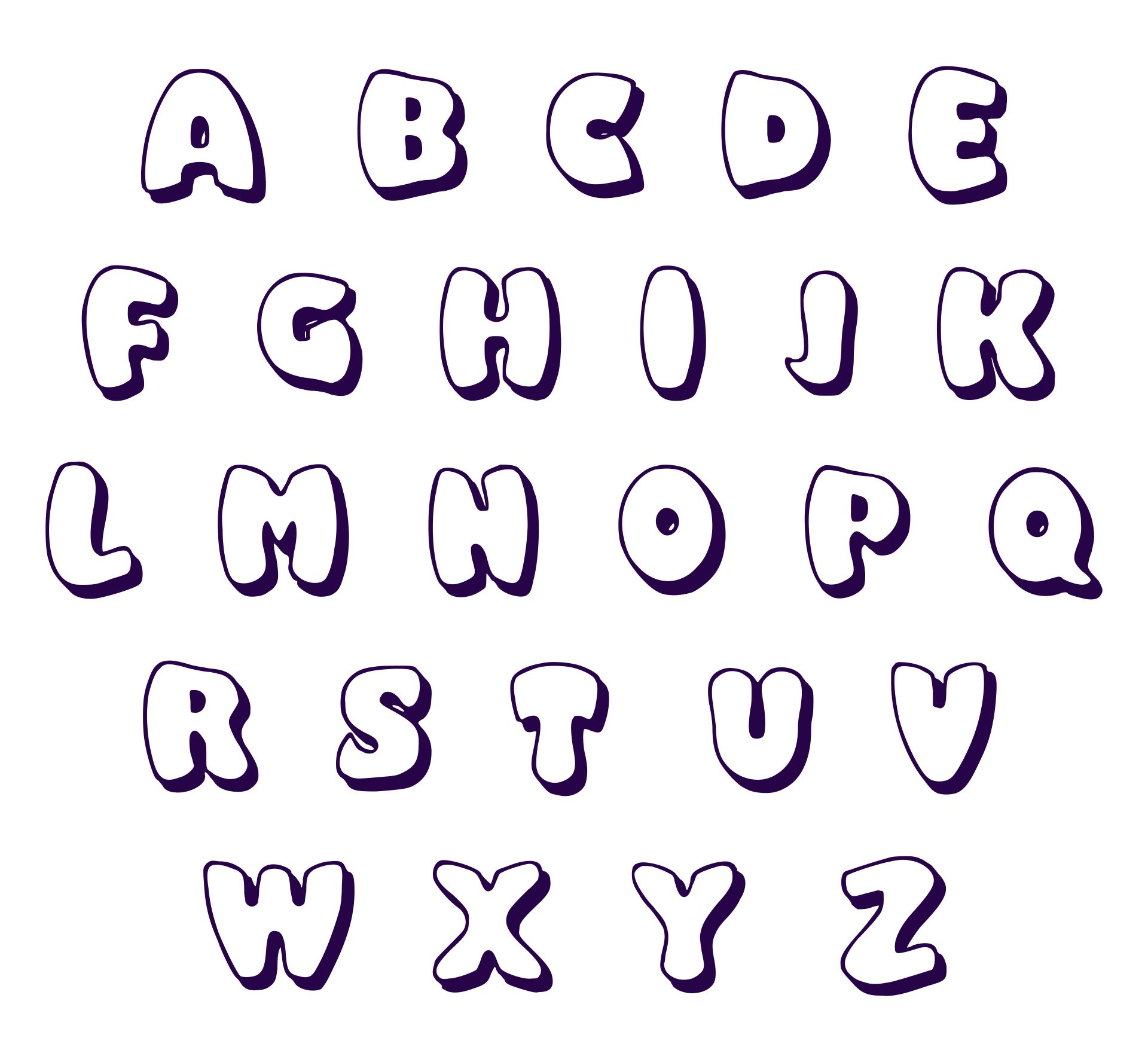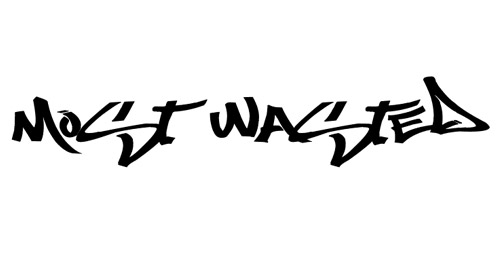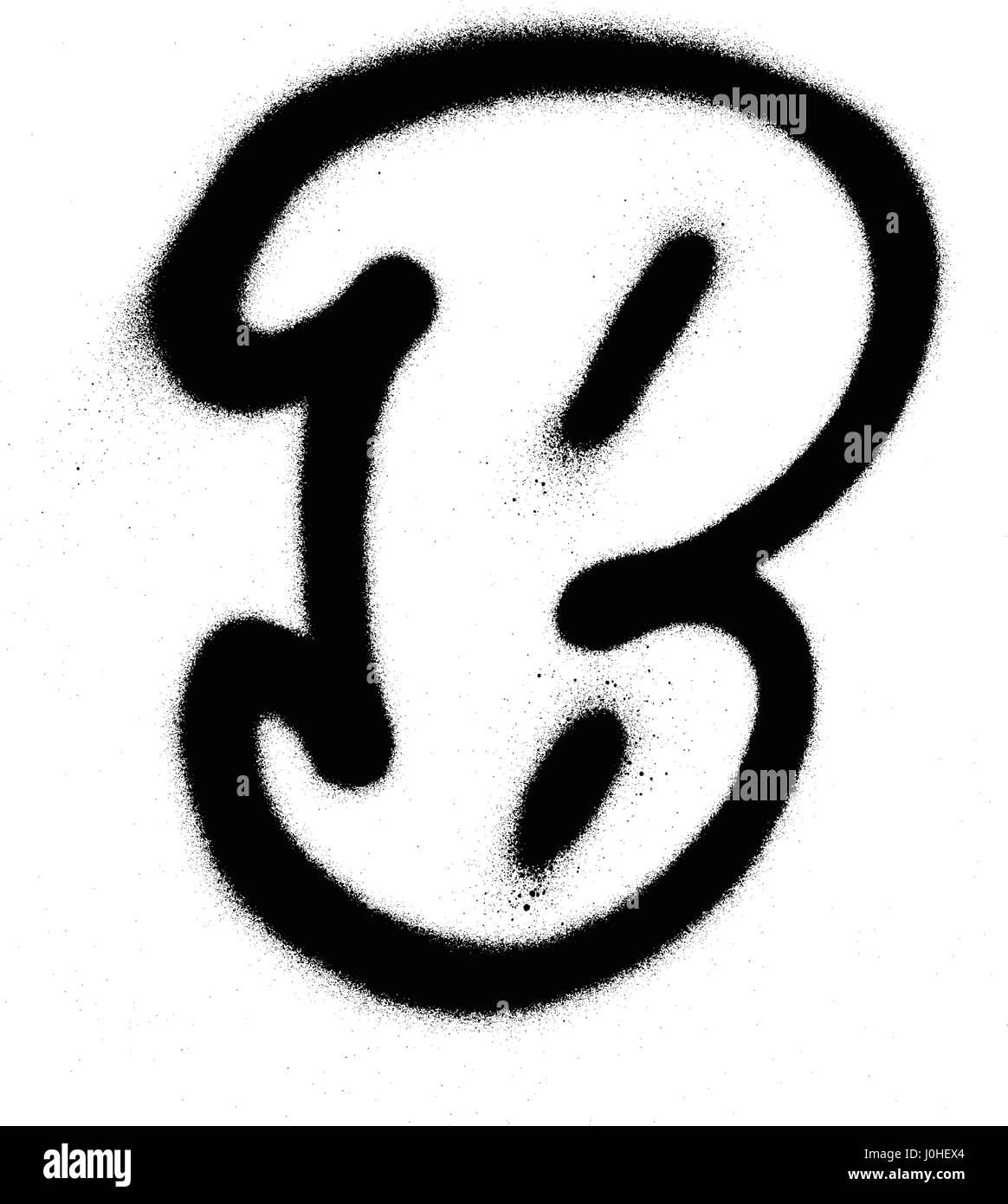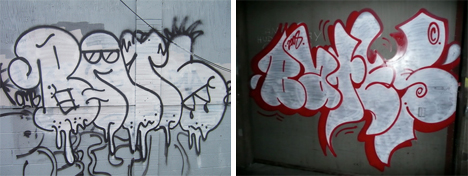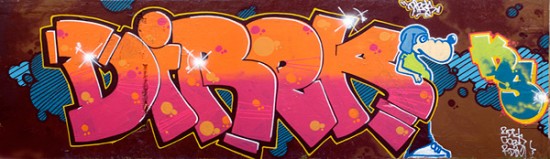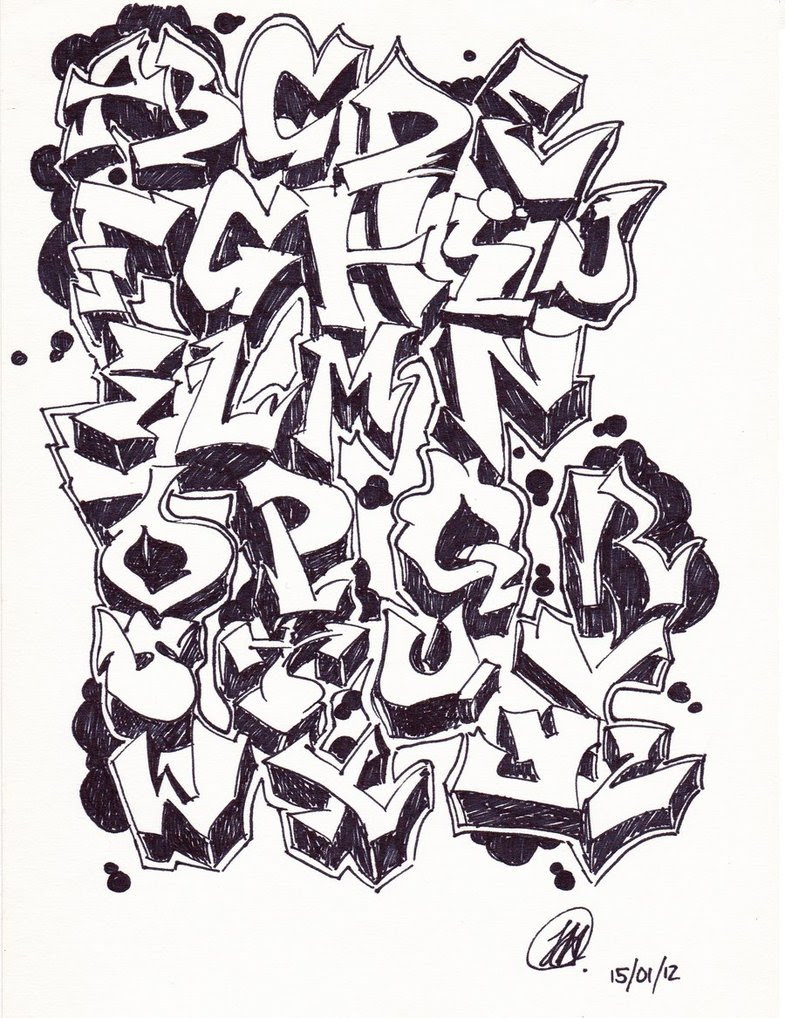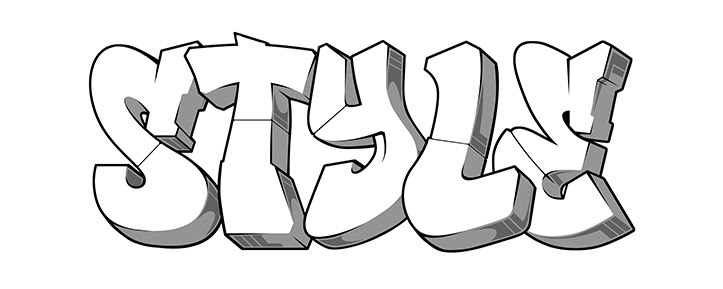
61 graffiti artists share their styles bombing science. Contoh grafiti huruf keren dinding tembok graffiti art abjad grafiti doodle lettering.
Graffiti bubble lettering fonts. Classics Baskerville Futura Garamond alongside hot new fonts Brice MonetaNovera. Bubble letters a z gplusnick. Street Soul by Endie.
Depending on your preferences there are many fonts that can be used for graffiti purposes such as bubble fonts stencil fonts outline fonts etc. Enter letter or word 2. You can customize your experience with live font previews.
Create Your Own Bubble Letters. Fresh Marker by John Gauthier. Kelas pertama adalah kelas.
Graffiti is an artistic expression that is usually done on public buildings walls or trains. Now Showing 56 Graffiti Fonts in 48 Families RapScript Free PaintCans Free Wild Basics Free Magik Marker Free Rase Basic Free Scrawler 3rd Free StencilFont Free Slanger Free Captions Free ToughGuy Free GraffPity SearFont ReskaGraf B-Boy Can Control Cap Construct HomeBoy Subway Writers Family. Graffiti Numbers Graffiti Tattoo Fonts Bubble Numbers Bubble Letters Numbers Font Hand Lettering Bubble Letter Fonts Graffiti Lettering Fonts.
S h r i y a. Create Your Own Bubble Letters Family Trusper Tip. Graffiti style A Dripping Marker Barrakuda Big Mister C Bling Ring Dafxter Gas Huffer Phat Graffiti Paint Brush Graffito Hardcore Lomax Meglaphoid Reticulum 3 Rough Graffiti Saint Scratched Car Paint Skatter Squeeg Street Soul The Battle Continuez To Be Continued Trashed Tribal Wickhop Handwriting ZOE Graphic.
Graffiti pink A bubble font sprayed over white. Graffiti Font dripping Graffiti Font hand drawn Graffiti Font inspiration Graffiti Font pink Graffiti Font svg. Saved by Natalie Vela.
Fonts for graffiti murals and drawings. Graffiti Font Create Your Own Bubble Letters. Graffiti Bubble Font number thirteen 13 in black over white.
Graffiti bubble font bad one 1 word in black on white. Get inspired and check out our collection of free graffiti fonts here or use our graffiti. Our most daring and original sources for street graffiti or a mural.
Graffiti fonts can be a good way to study graffiti letters or graffiti alphabet but you really should learn to express in your style. Use our graffiti generator to make your name look like it was spray-painted in the city. Graffiti bubble font bad one 1 word in black over white.
Graffiti Bubble Font number thirteen 13 in black on white. Your custom Graffiti text will instantly be created in graphic format in Graffiti style. Graffiti Bubble Font number thirteen 13 in black over white Graffiti pink A bubble font sprayed over white.